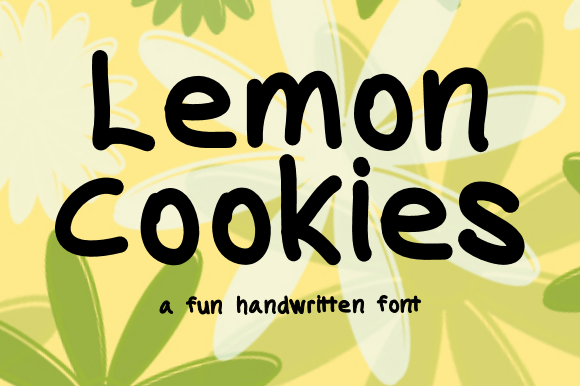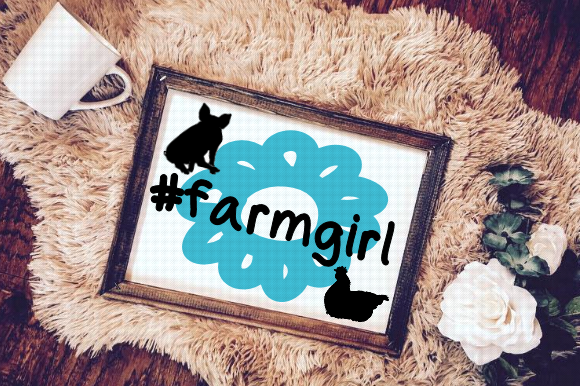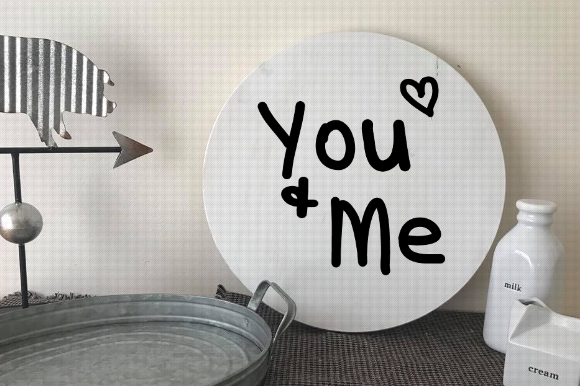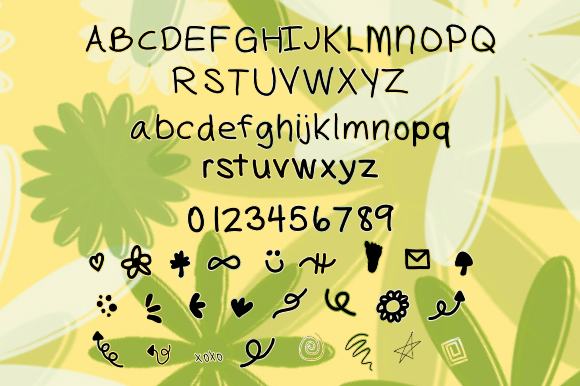
HomeScript FontsLemon Cookies Font Script Fonts Lemon Cookies Font FacebookXPinterestWhatsApp Lemon Cookies Font Poster 2 Lemon Cookies Font Poster 3 Lemon Cookies Font Poster 4 About Lemon Cookies Font The Lemon Cookies is a fun and lighthearted handwritten font with 44 doodle dingbats. DOWNLOAD ON CREATIVE FABRICAThis font is sold and delivered by Creative Fabrica. Font Canyon may earn a commission if you buy through this link. People also explored Winter Aythenta Font Midnight Bangkok Font Kasttle Font Fatline Bold Maluku Font Simple Kitchen Font Fighter Horror Font A Star Font Christmas Eve Font 318 0 TagsLemon Cookies Font Previous articleLosing Grip FontNext articleTroche Font LEAVE A REPLY Cancel reply Comment: Please enter your comment! Name:* Please enter your name here Email:* You have entered an incorrect email address! Please enter your email address here Website: Save my name, email, and website in this browser for the next time I comment. Personal Use Free Unispace Personal Use Free Read more about this font First Be Lucky Personal Use Free Read more about this font Abberancy Personal Use Free Read more about this font Planet Benson 2 Personal Use Free Read more about this font BLOG Elegant Wedding Invitation Fonts – Handwritten & Script Fonts Elegant Wedding Invitation Fonts Your wedding day is one of the most important moments of your life, and every detail matters—including your invitation design. Our... Free vs Paid Fonts: Why Investing in Premium Fonts Is Worth It How to Cut Any Font on Cricut: Convert a Font to SVG (Free) Best Fonts for T-Shirt Design – Top 2025 Picks